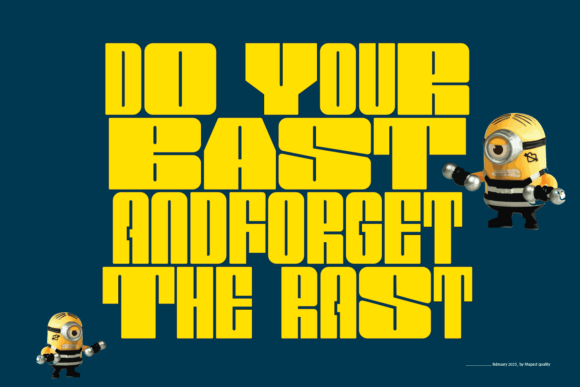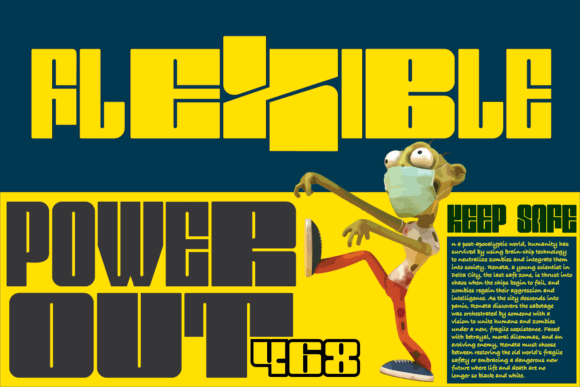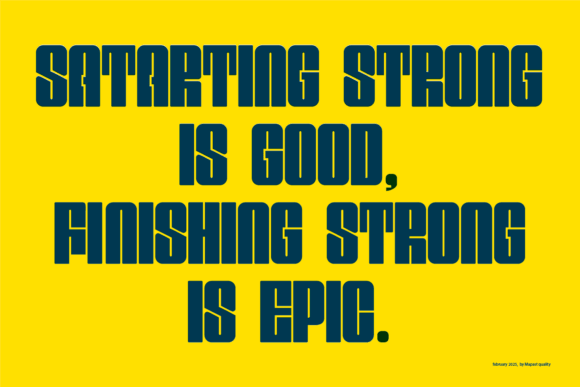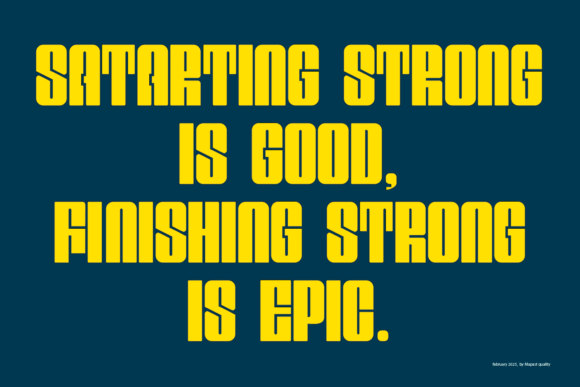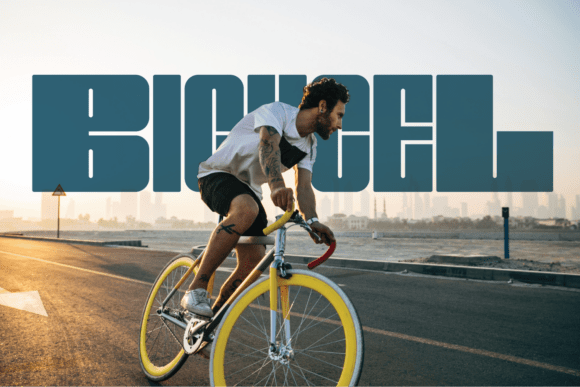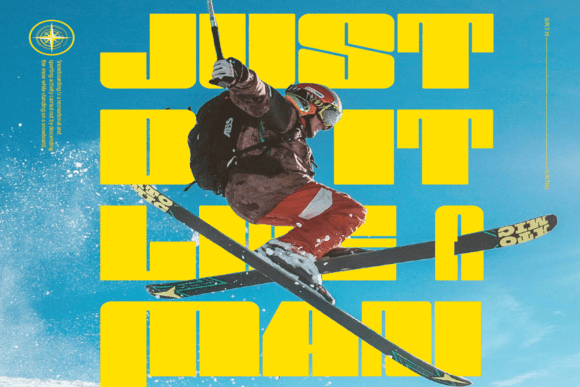
Gorgone Font: A Bold and Futuristic Sans Serif for Modern Designs
In the realm of typography, fonts play a crucial role in conveying the message and aesthetic of a brand or design. Among the myriad of fonts available, the Gorgone Font stands out for its bold, geometric, and futuristic appeal. This article delves into the characteristics and uses of the Gorgone Font, making it a valuable resource for designers and crafters seeking a powerful visual presence.
Key Characteristics of Gorgone Font
The Gorgone Font is a bold and highly geometric futuristic sans serif that embodies a modern and industrial feel. Its key characteristics can be broken down into several distinctive features:
- Modular and Geometric Shapes: Each letter in the Gorgone Font appears to be based on rectangular proportions with rounded corners. This modular approach gives the font a structured and cohesive look, making it highly legible and versatile.
- Strong Horizontal Cuts: One of the defining features of the Gorgone Font is the distinct horizontal cuts noticeable in letters like āGā and āE.ā These cuts add a dynamic, futuristic element to the design, setting it apart from more traditional fonts.
- Rounded Corners: The rounded edges of the Gorgone Font strike a balance between boldness and friendliness. This blend of sharp geometric shapes with rounded corners makes the font appear both modern and approachable.
- High Contrast Colors: The use of bright yellow on a deep blue background makes the Gorgone Font stand out prominently. This high contrast color scheme not only enhances visibility but also adds to the font’s futuristic appeal.
- Futuristic Aesthetic: Overall, the design of the Gorgone Font evokes a sense of futurism, making it well-suited for technology or modern-themed projects. Its sleek and modern appearance is perfect for designs that require a forward-thinking and innovative look.
Personality and Usage of Gorgone Font
The Gorgone Font exudes a strong, masculine, and bold personality, making it ideal for branding or designs that require a powerful visual presence. Its unique blend of geometric precision and friendly rounded corners gives it a distinctive voice that can be leveraged in various design contexts.
Designers and crafters can use the Gorgone Font in a variety of projects, including:
- Technology and Software Branding: The futuristic aesthetic of the Gorgone Font makes it a perfect fit for technology and software brands looking to convey innovation and modernity.
- Product Packaging: The bold and geometric nature of the font makes it suitable for product packaging, especially for products that require a modern and industrial look.
- Advertising and Marketing Materials: The high contrast colors and strong horizontal cuts of the Gorgone Font make it highly effective for use in advertising and marketing materials, where visibility and impact are crucial.
- Web Design: The Gorgone Font can also be used in web design to create a modern and futuristic look for websites, especially those related to technology, innovation, and modern lifestyle.
Tips for Using Gorgone Font Effectively
To maximize the impact of the Gorgone Font, consider the following tips:
- Pair with Complementary Fonts: When pairing the Gorgone Font with other fonts, choose fonts that complement its geometric and futuristic style. Simple sans serifs or fonts with a technological feel work well.
- Use High Contrast Colors: Take advantage of the high contrast color scheme of the Gorgone Font to enhance visibility and make your design stand out.
- Consider Font Size and Weight: The bold nature of the Gorgone Font means it can be effective at larger sizes. Experiment with different weights and sizes to find the right balance for your design.
The Gorgone Font is a powerful and versatile typeface that offers a unique blend of geometric precision, modernity, and friendliness. Its bold and futuristic aesthetic makes it an excellent choice for designers and crafters looking to create a strong visual presence in their projects. By understanding its key characteristics and using it effectively, designers can leverage the Gorgone Font to create innovative and impactful designs.